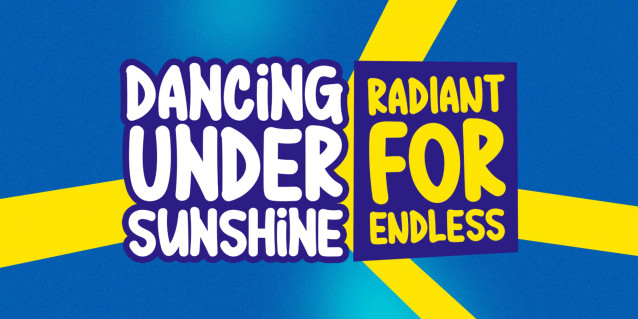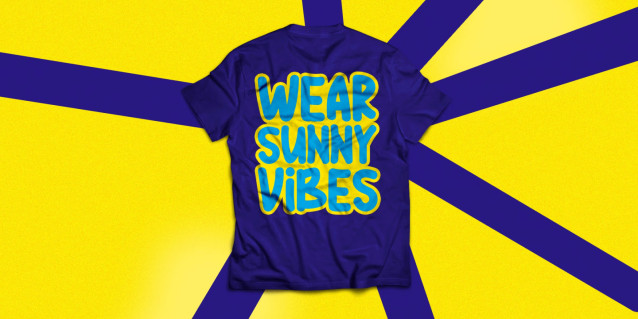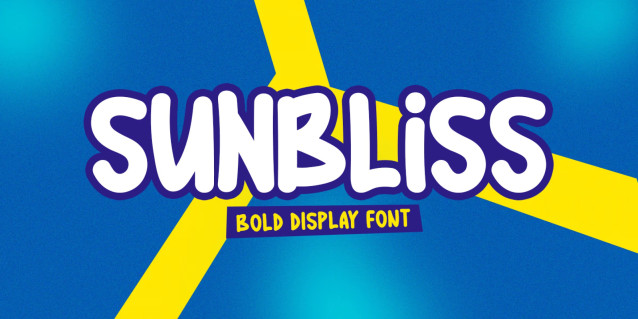
Sunbliss Font
Sunbliss is a bold and playful display font designed with soft, rounded shapes and a cheerful personality. Its thick strokes and friendly curves create an energetic and eye-catching appearance. The font delivers a fun, modern, and vibrant feel, making it perfect for posters, logos, headlines, packaging, and creative branding projects.